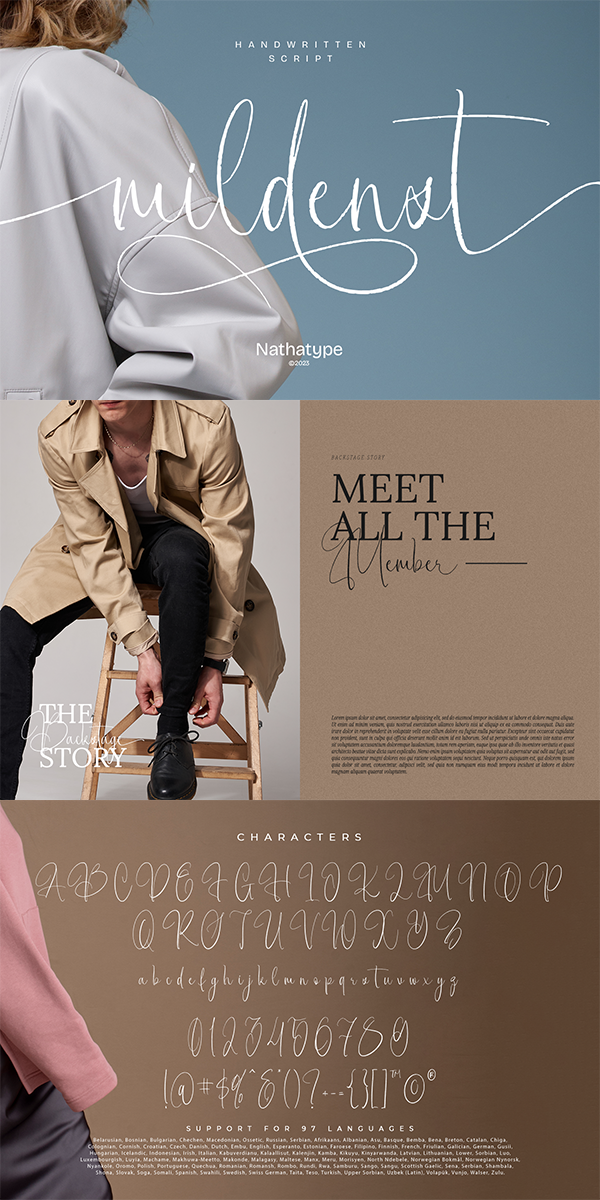
Mildnest Font
About Mildnest
Mildenst is a script font that embodies the essence of flowing cursive handwriting. The subtle variation in line weight, combined with the delicate curves and loops, imbues the font with a natural appearance. The swinging letter details evoke the mesmerizing rhythm of handwritten strokes. The carefully balanced spacing ensures readability while preserving the authentic feel of cursive handwriting. In addition, you can enjoy the available features here.
Mildenst fits in headlines, logos, posters, flyers, invitations, name cards, branding materials, print media, editorial layouts, and many more. Find out more ways to use this font by taking a look at the font preview.